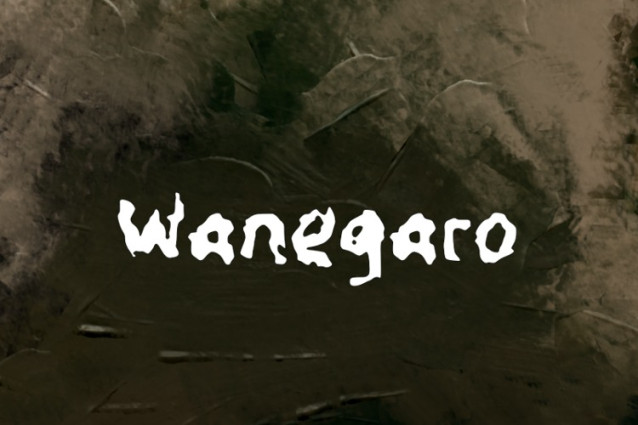
Wanegaro Font
Wanegaro Font, perfectly fit for branding, logo, wedding things, greeting cards, fashion, lookbook, marketing promotion, anytime you want to look fancy elegant but still casual.